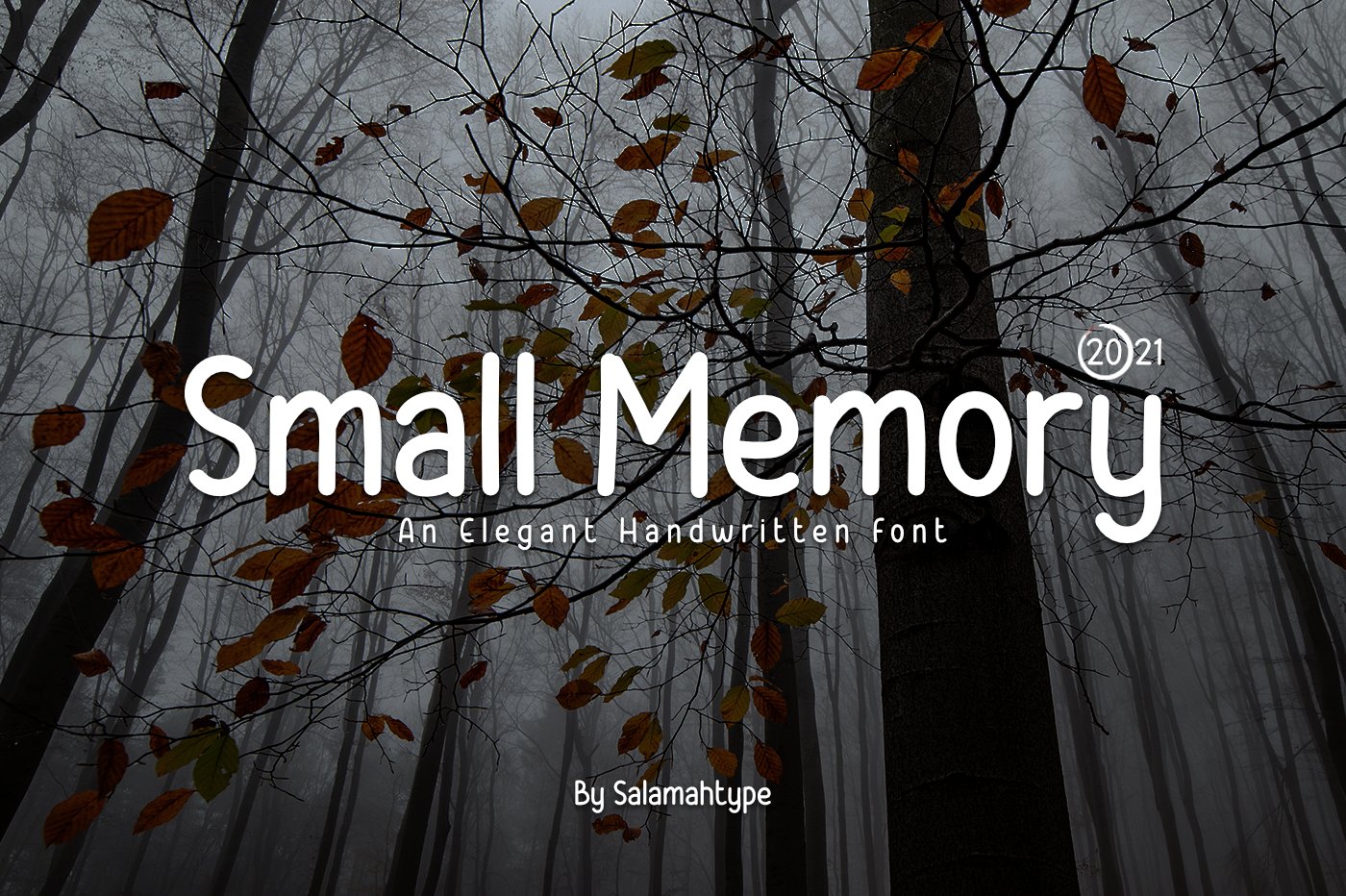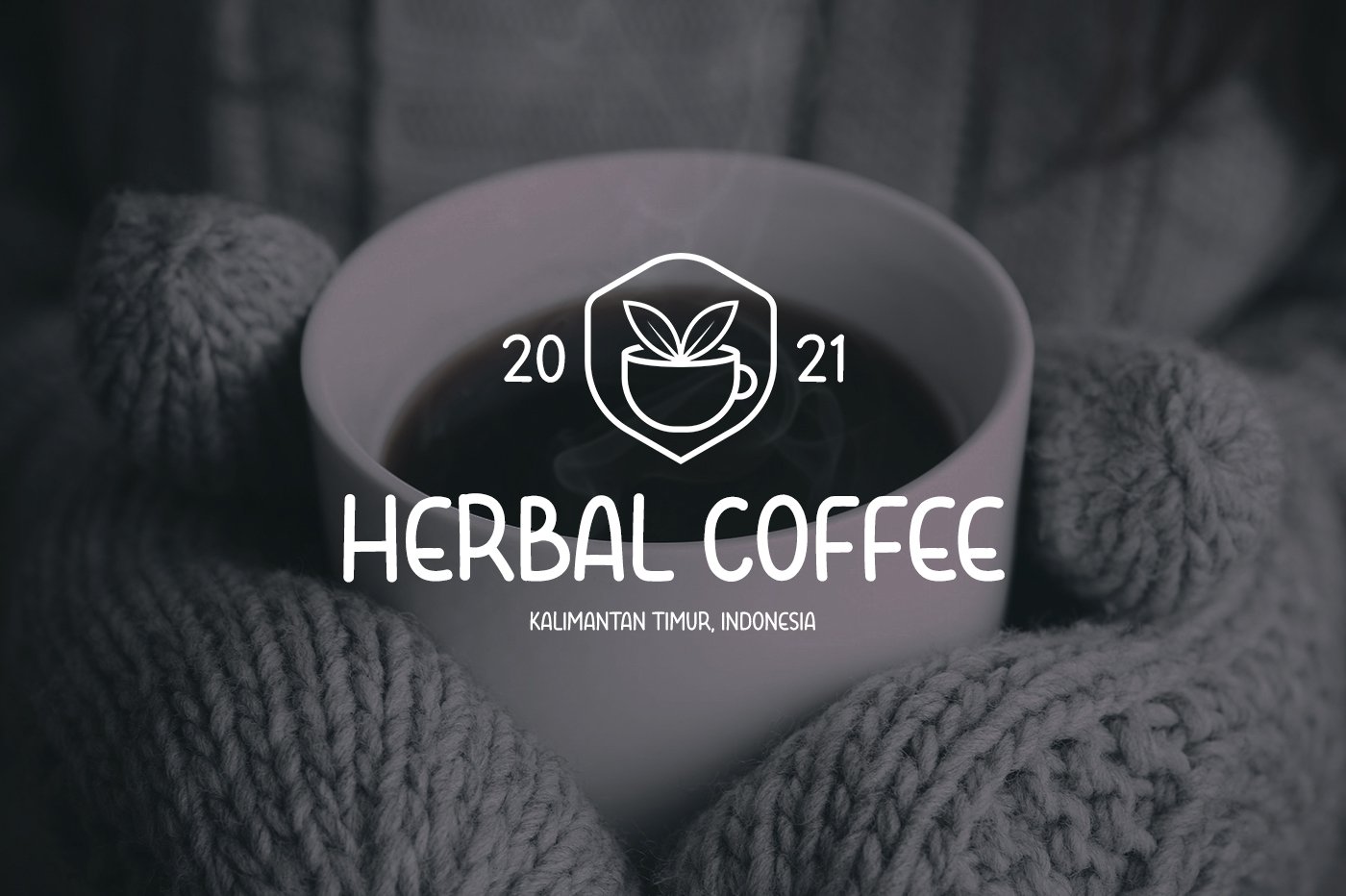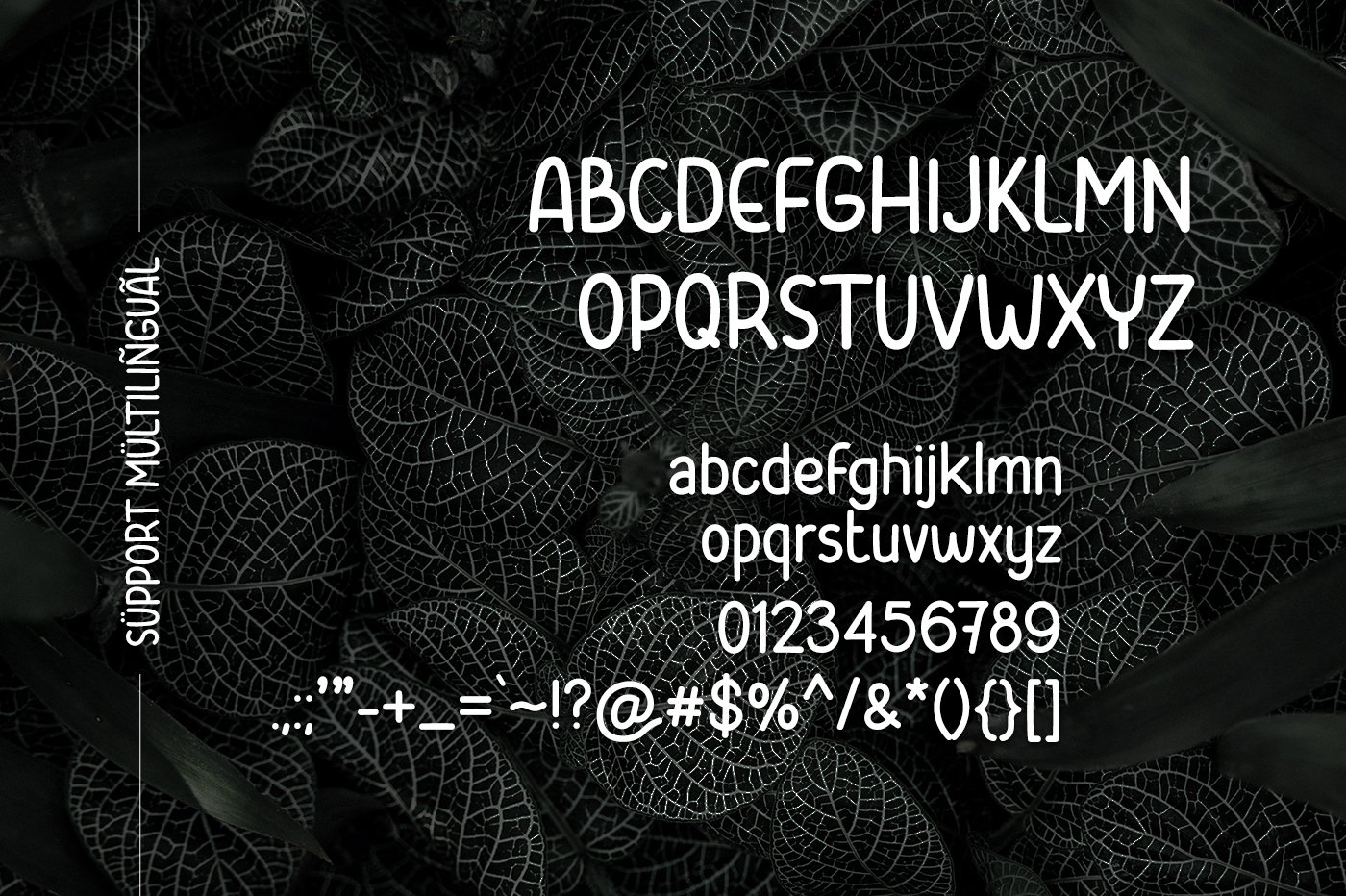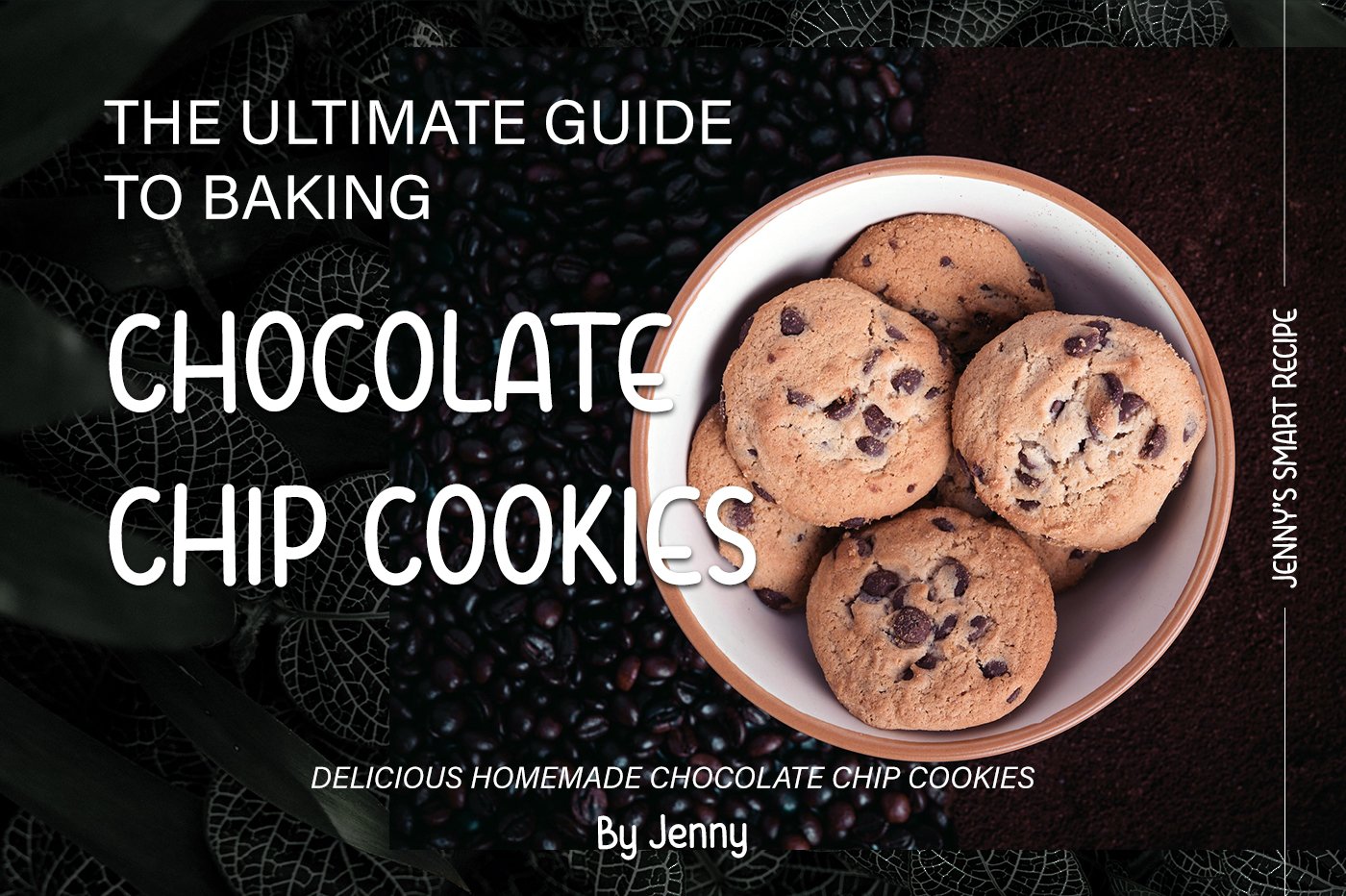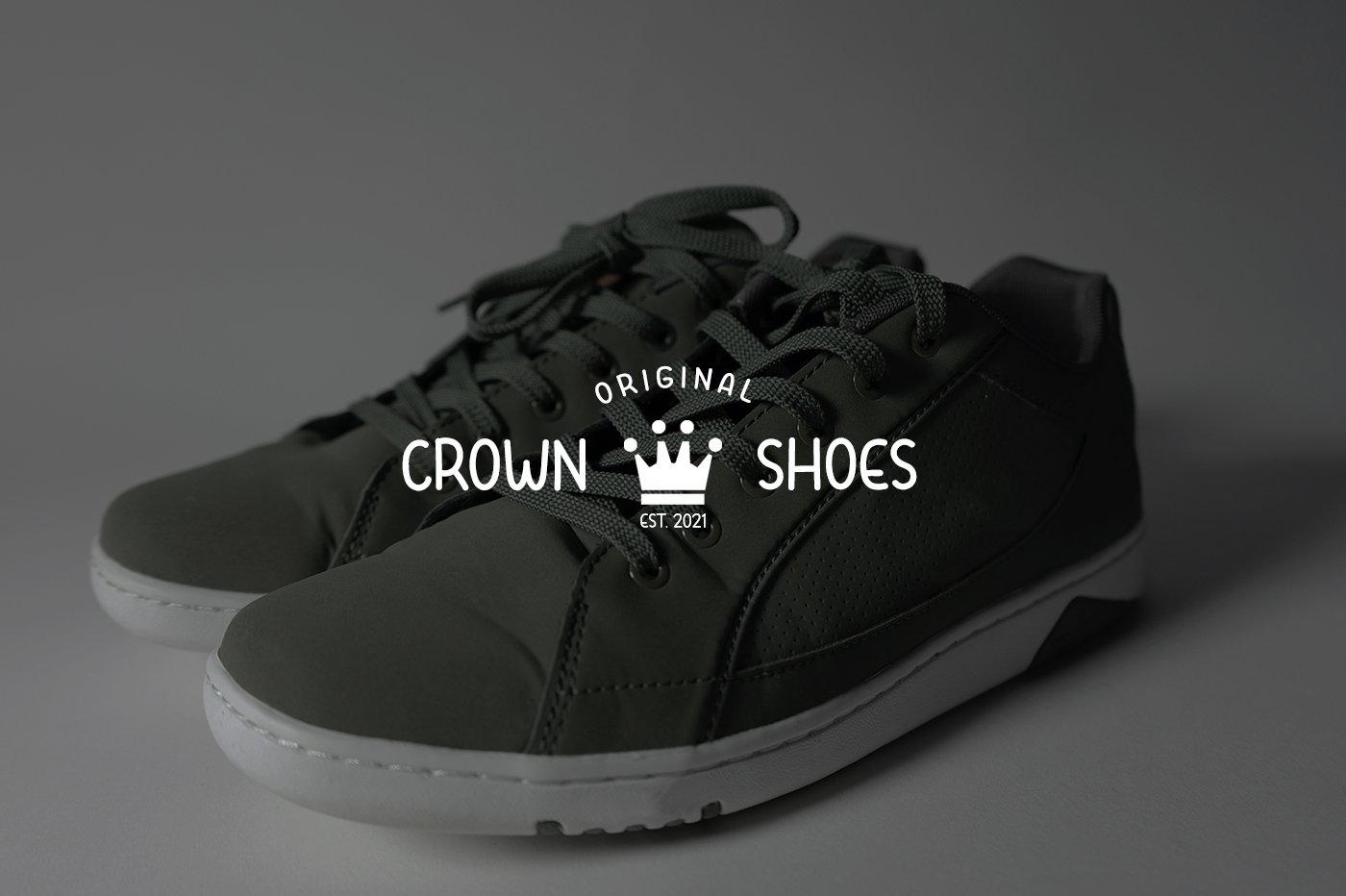
- Small Memory Handwritten
Small Memory is a clean handwritten font. Perfect for logos, branding projects, product packaging and so much more.
- Standard and Multilingual Glyphs